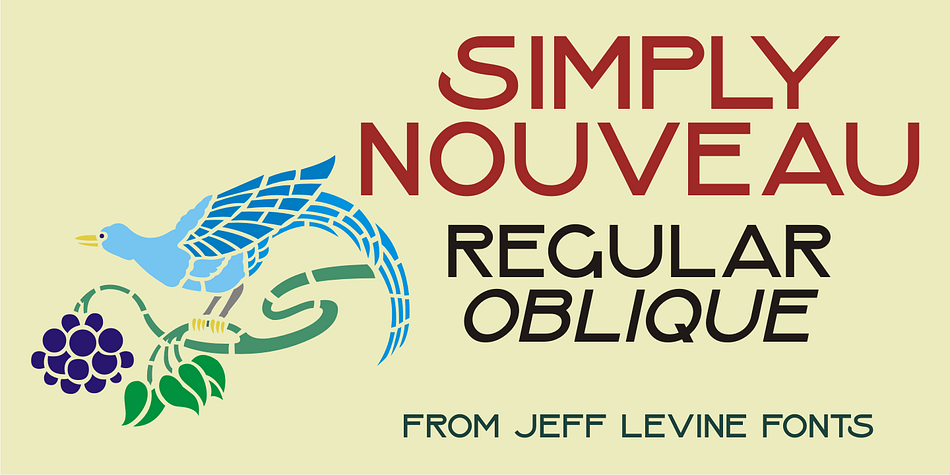
Simply Nouveau JNL is a display sans font family. This typeface has two styles and was published by Jeff Levine Fonts.
As Word War I raged on during 1917, a large number of songs were written as morale builders for both the soldiers leaving for overseas service as well as their friends, family and loved ones.
One such song, “Send Me Away with A Smile” has its title hand lettered in a simple, yet somewhat stylized sans serif design that was so much a part of the Art Nouveau style of that era.
Simply Nouveau JNL captures and preserves that design within a digital typeface; available in both regular and oblique versions.